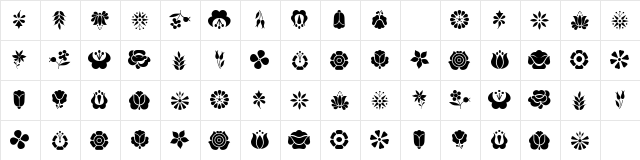
Kalocsai Flowers Regular Font Preview
Kalocsai Flowers Regular
Design Context for Kalocsai Flowers Typeface
Kalocsai Flowers is a composed and adaptable typeface that performs quietly and consistently across a wide range of design contexts.